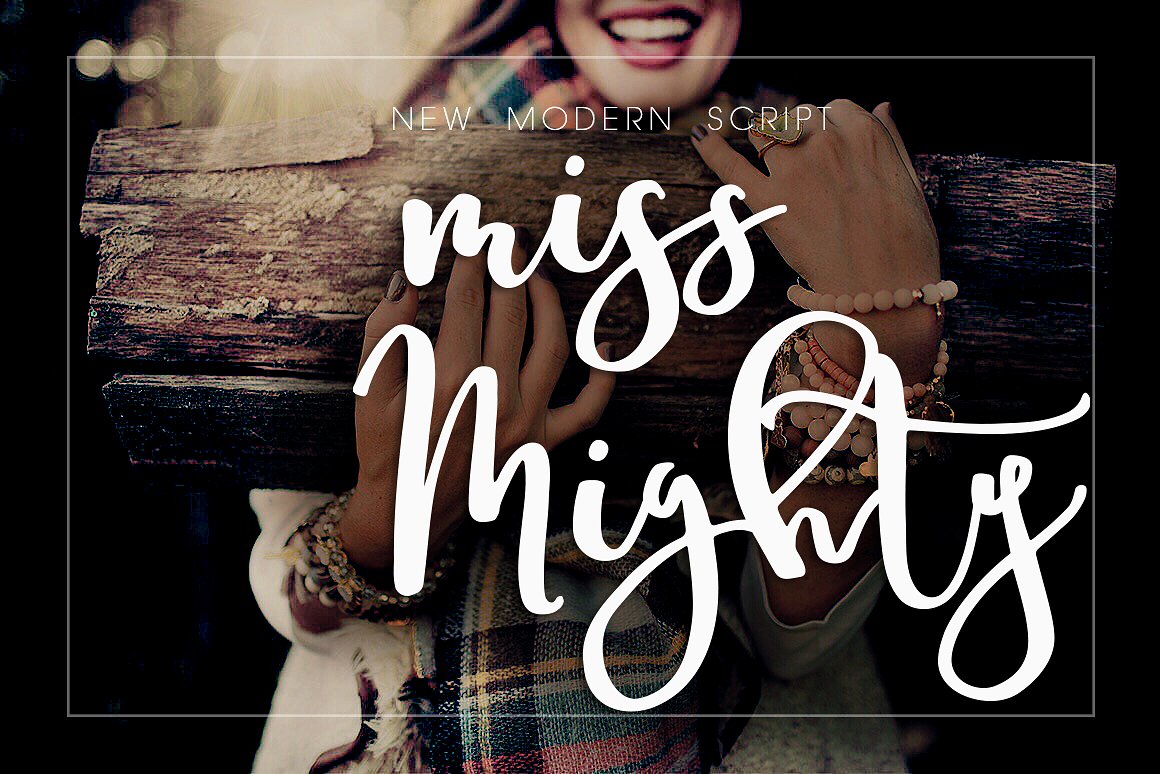
Miss Mighty Script
Miss Mighty Script Font
MissMighty suitable for design any fresh and lovely design such as for invitation, announcement, scrapboooking, photobook, blogger design, web design, modern wedding, book cover, moodboard, wall art, letter decor, printable art, project life, logo and branding, art quote, poster and many more.